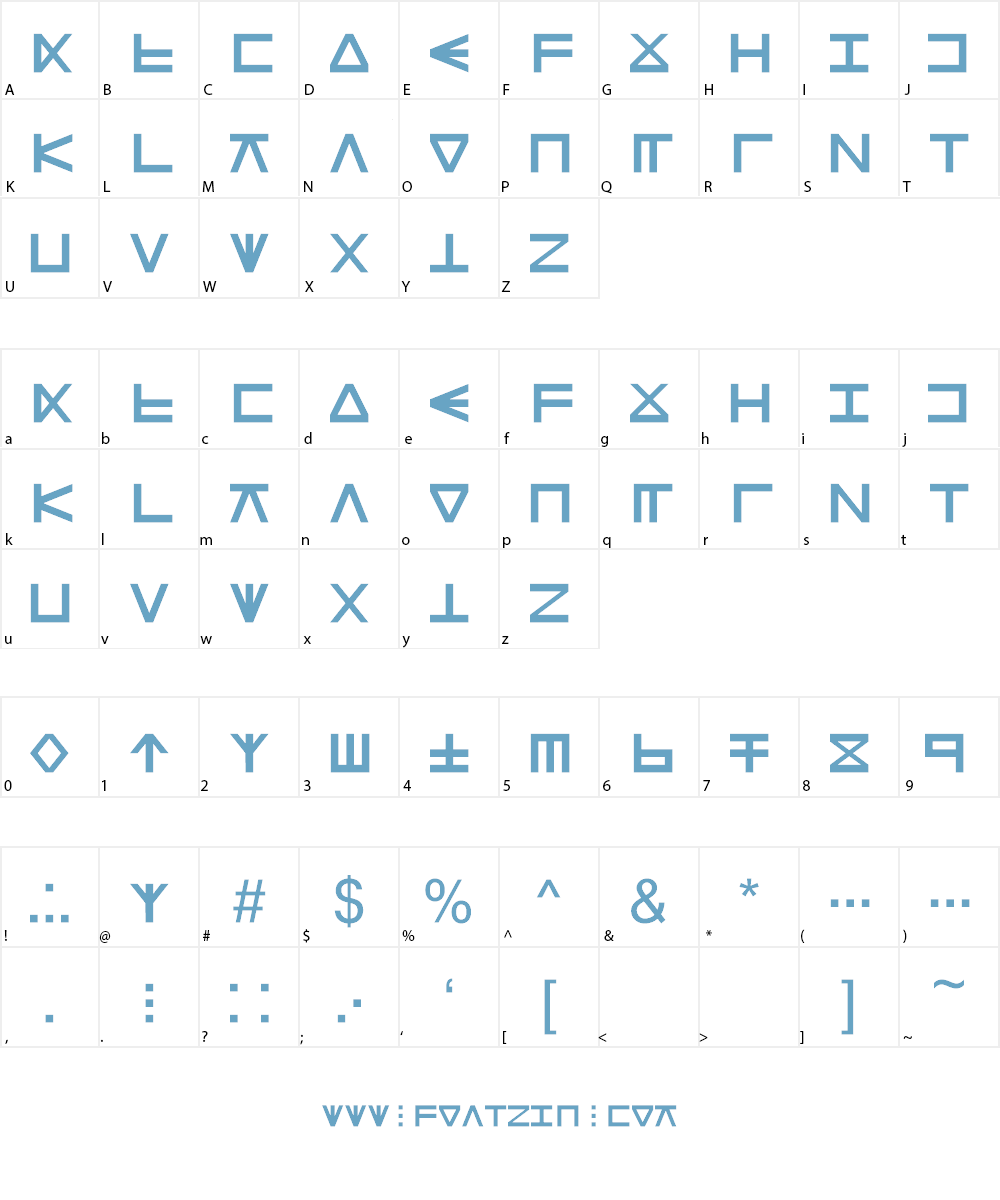
Dutrilin provides runic style font. Its letters, in two or three straight lines, result from rotations, reflections and mutations of the Latin and Greek alphabets. Pronounce “Doo-Tri-Lyn”. Dutrilin targets sci-fi and fantasy contexts.